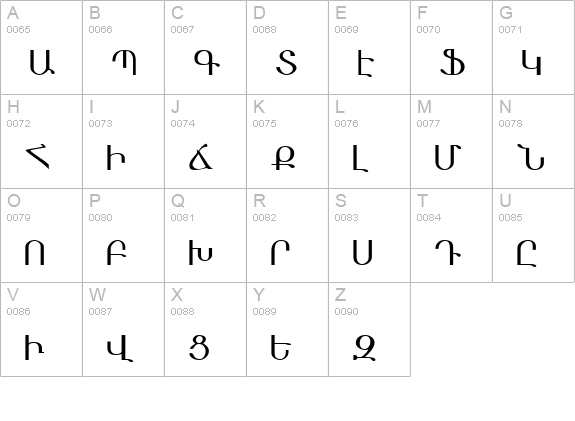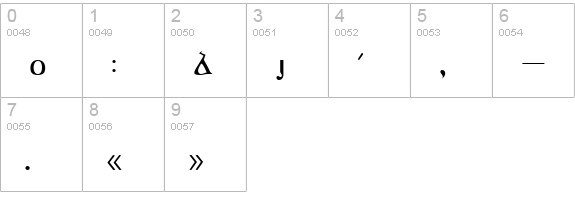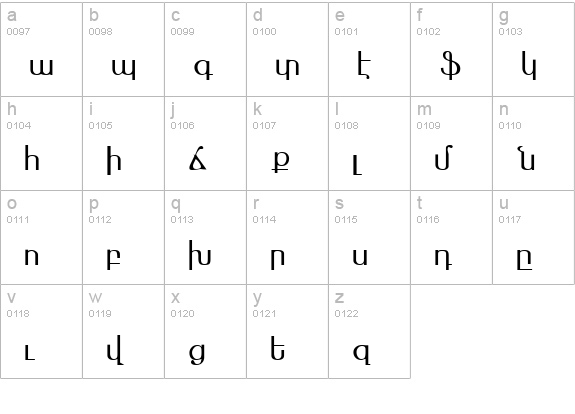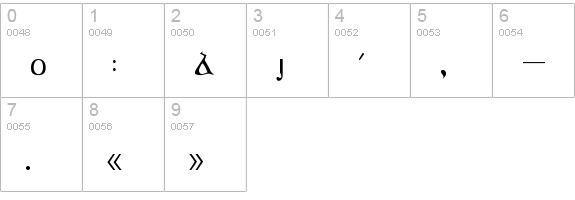
Ararat Font Details
Ararat font is a versatile and elegant typeface that exudes sophistication and charm. With its clean lines and distinctive curves, Ararat font is perfect for a wide range of design projects, from branding to editorial layouts. This modern font boasts a timeless appeal that is both classic and contemporary, making it ideal for adding a touch of refinement to any project. Whether you're creating a logo, poster, or website, Ararat font will bring a sense of style and professionalism to your designs. The best part? Ararat font is available for free download at FontsMarket.com, making it accessible to designers of all levels. Don't miss out on the opportunity to elevate your projects with this stunning typeface. Download Ararat font today and let your creativity shine!